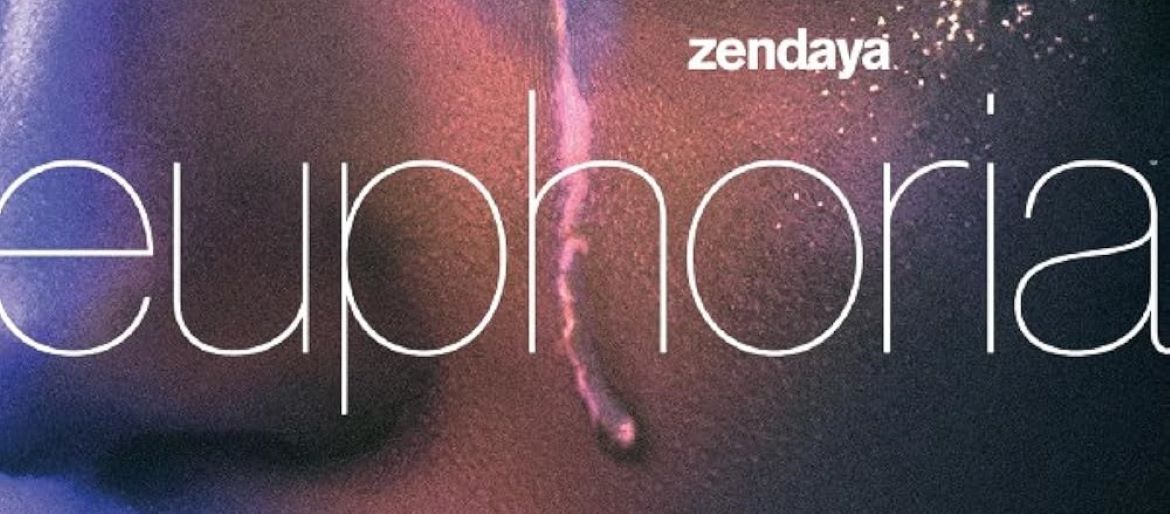
Euphoria Font
The Euphoria font delivers the same sleek, atmospheric style that fans associate with HBO’s acclaimed series. Its light, modern letterforms echo the show’s blend of emotional depth and late-night neon energy, making it ideal for visually expressive projects. Whether you’re designing promotional graphics, creative posters, or digital art, this typeface adds a polished, moody edge that feels both youthful and artistic.
About Euphoria
Euphoria is a groundbreaking HBO teen drama that debuted in 2019. The series centers on Rue Bennett and a diverse group of high school students as they confront themes of addiction, self-identity, relationships, trauma, and the realities of growing up in a fast-paced digital world. Known for its bold visual style and emotionally charged storytelling, the show explores the pressures and vulnerabilities of modern youth with raw honesty. Its cinematic approach, powerful performances, and striking aesthetics have made Euphoria a cultural touchstone and one of the most visually influential dramas of its time.